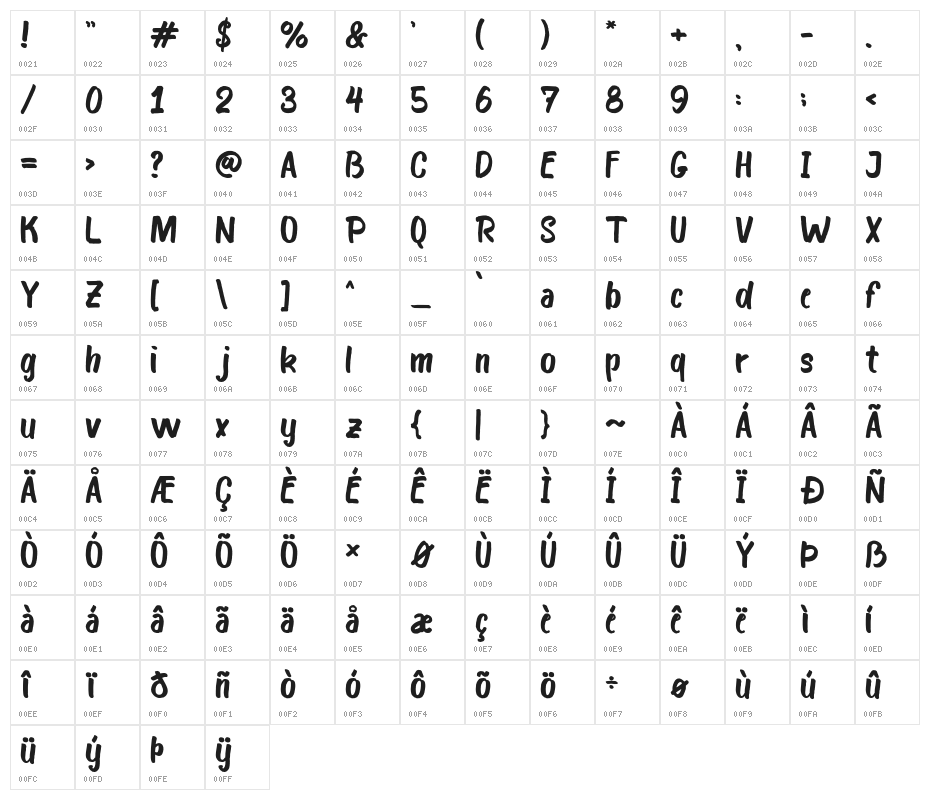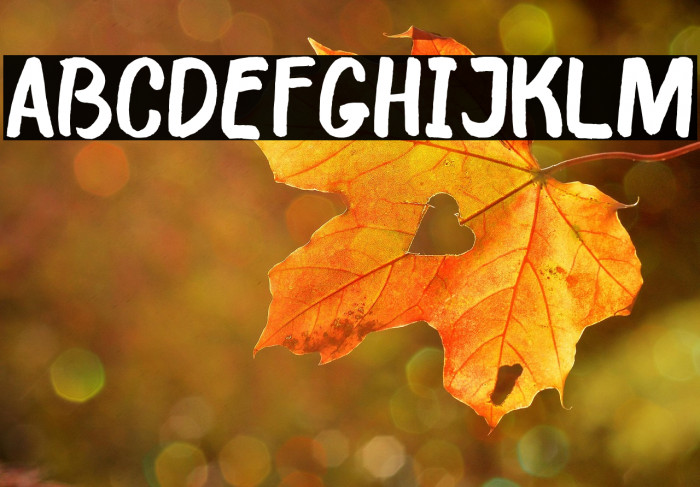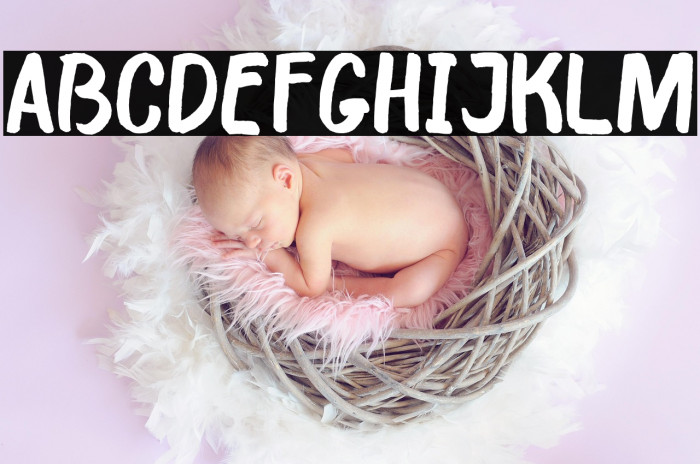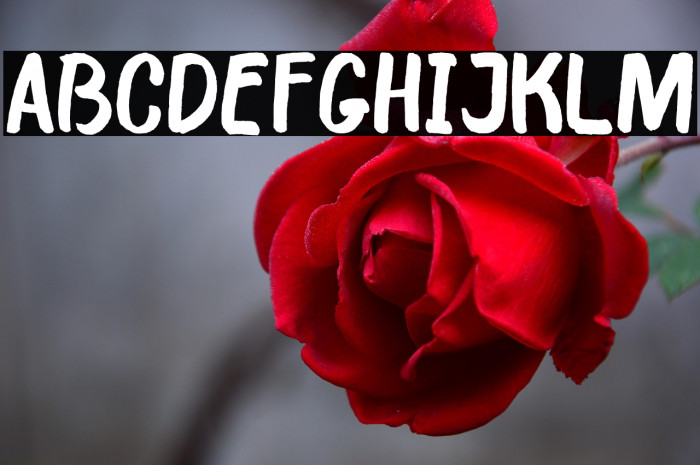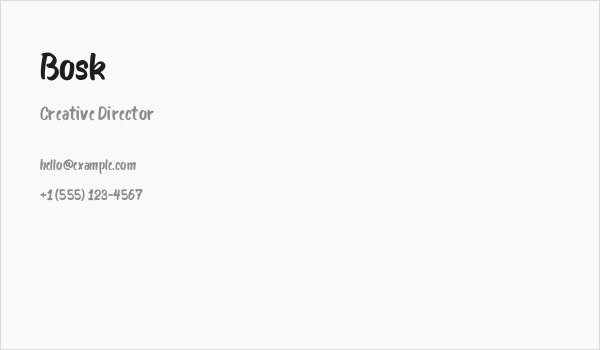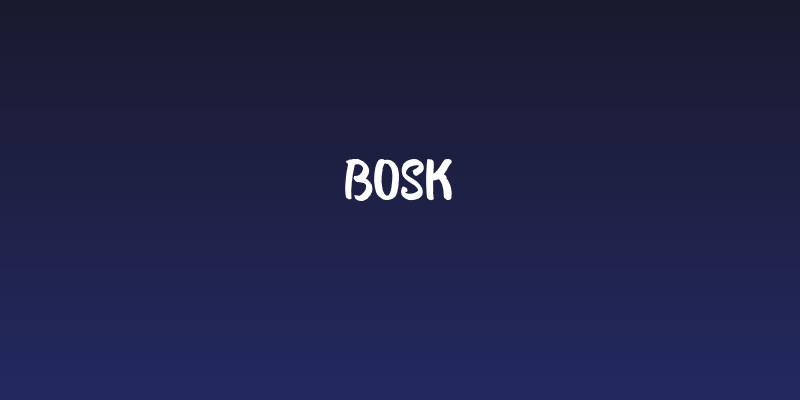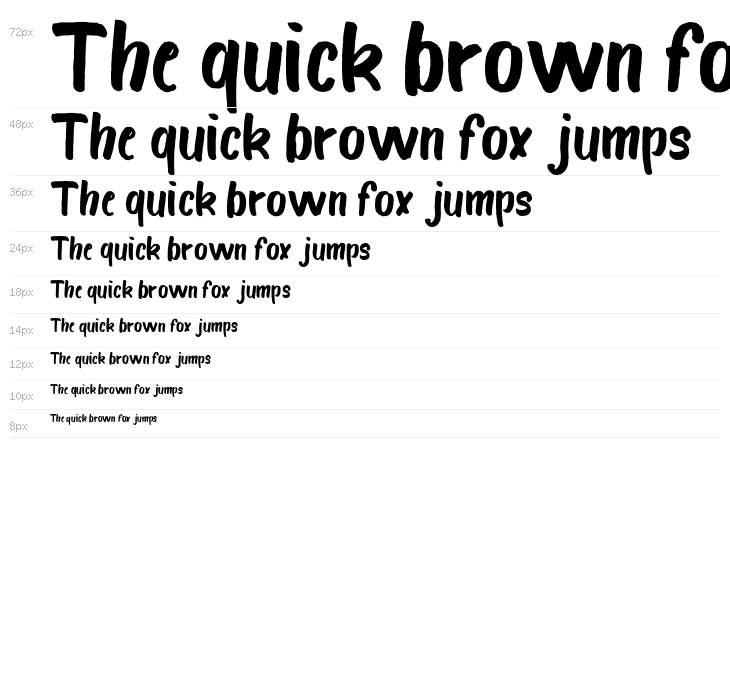
Bosk Font
Bosk Description
This font features a bold and expressive handwritten style, characterized by thick, brush-like strokes that convey a sense of energy and dynamism. The uppercase letters are robust and slightly irregular, adding a playful and informal touch. The lowercase letters maintain a consistent flow, enhancing readability while retaining a casual aesthetic. Numbers and special characters are crafted with the same boldness, ensuring a cohesive look across all text elements. This font's unique style makes it stand out, perfect for projects that require a personal and artistic flair.
Proposed ProjectsIdeal for branding, posters, social media graphics, and creative projects that require a personal touch.